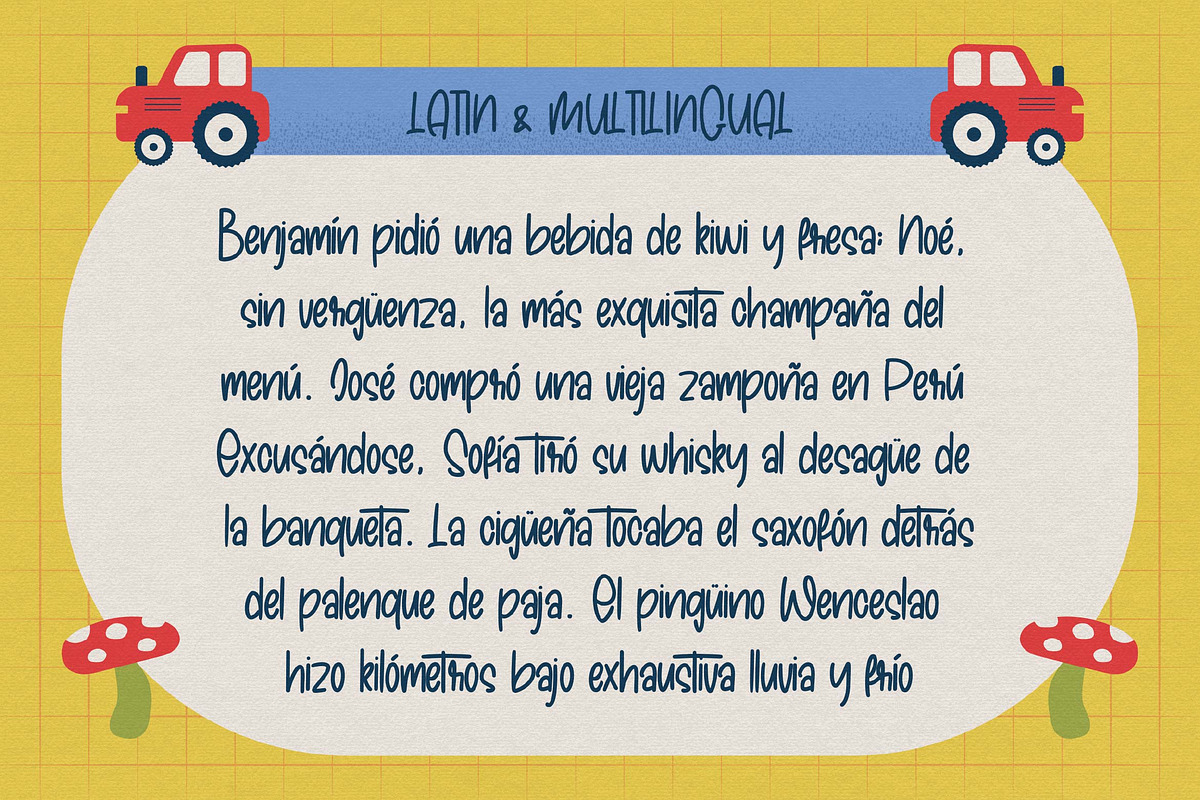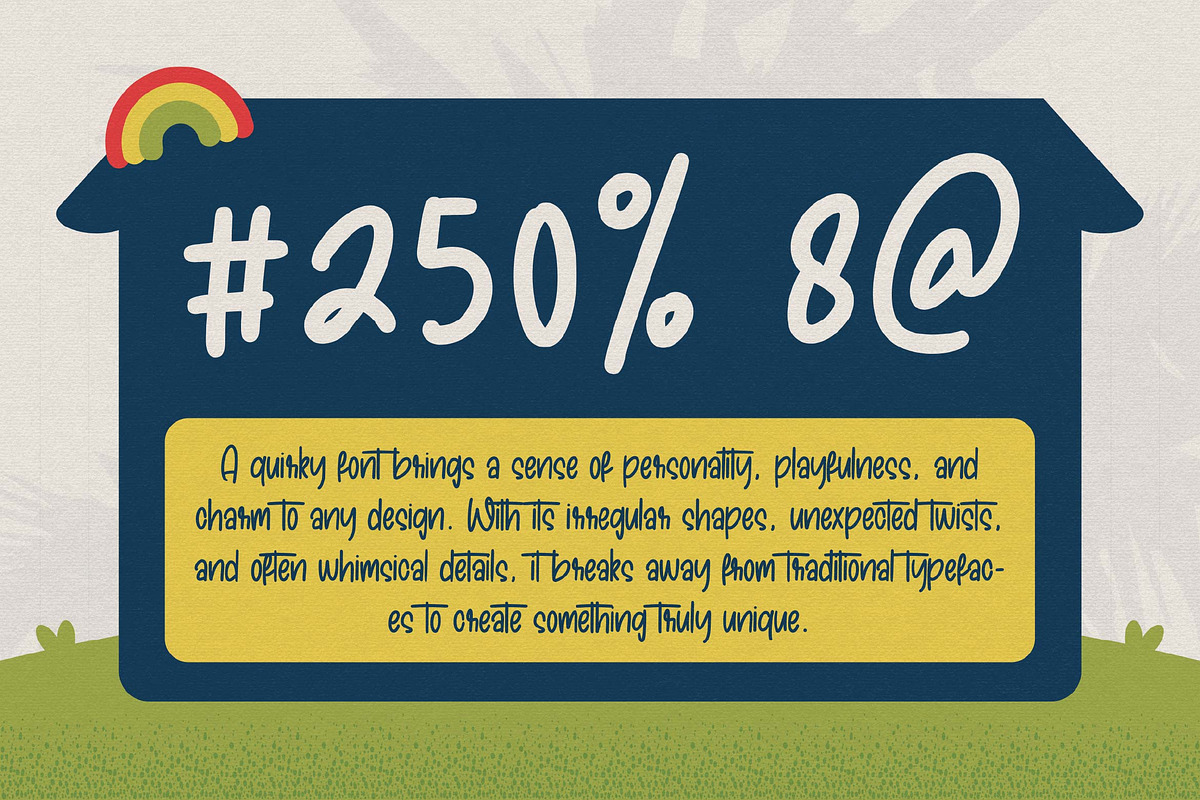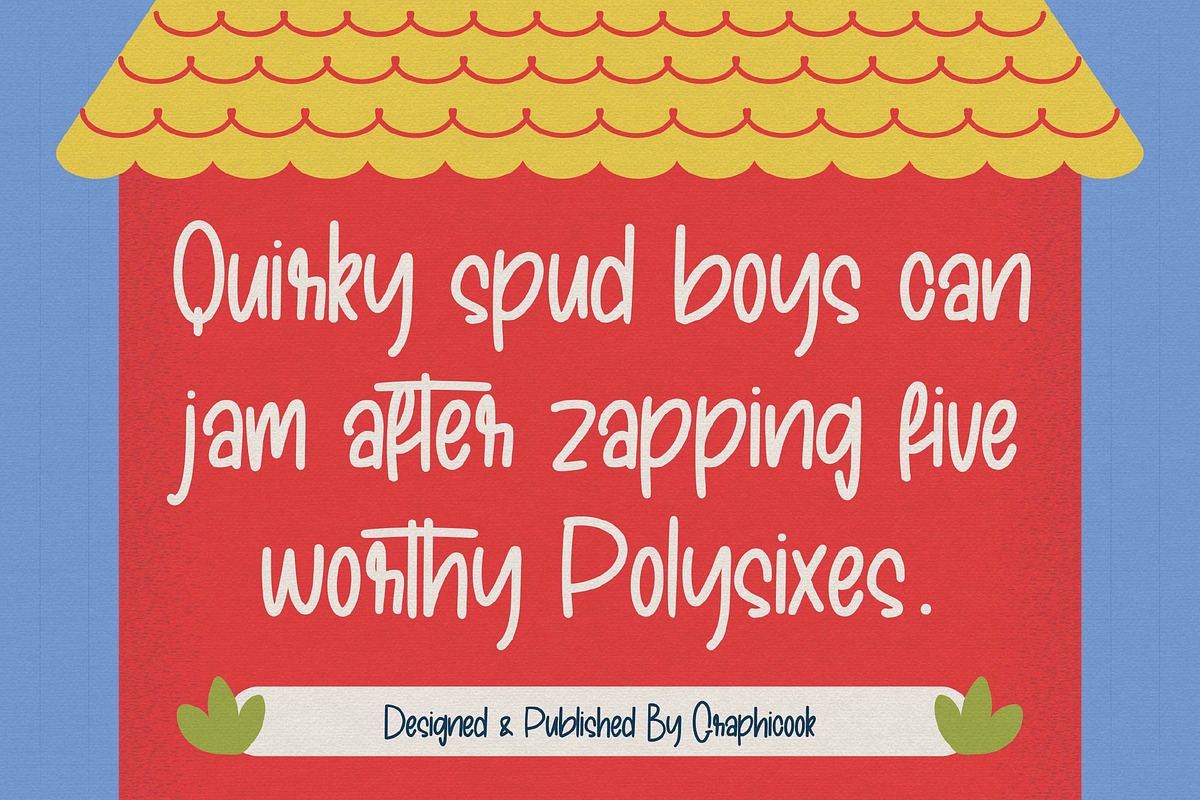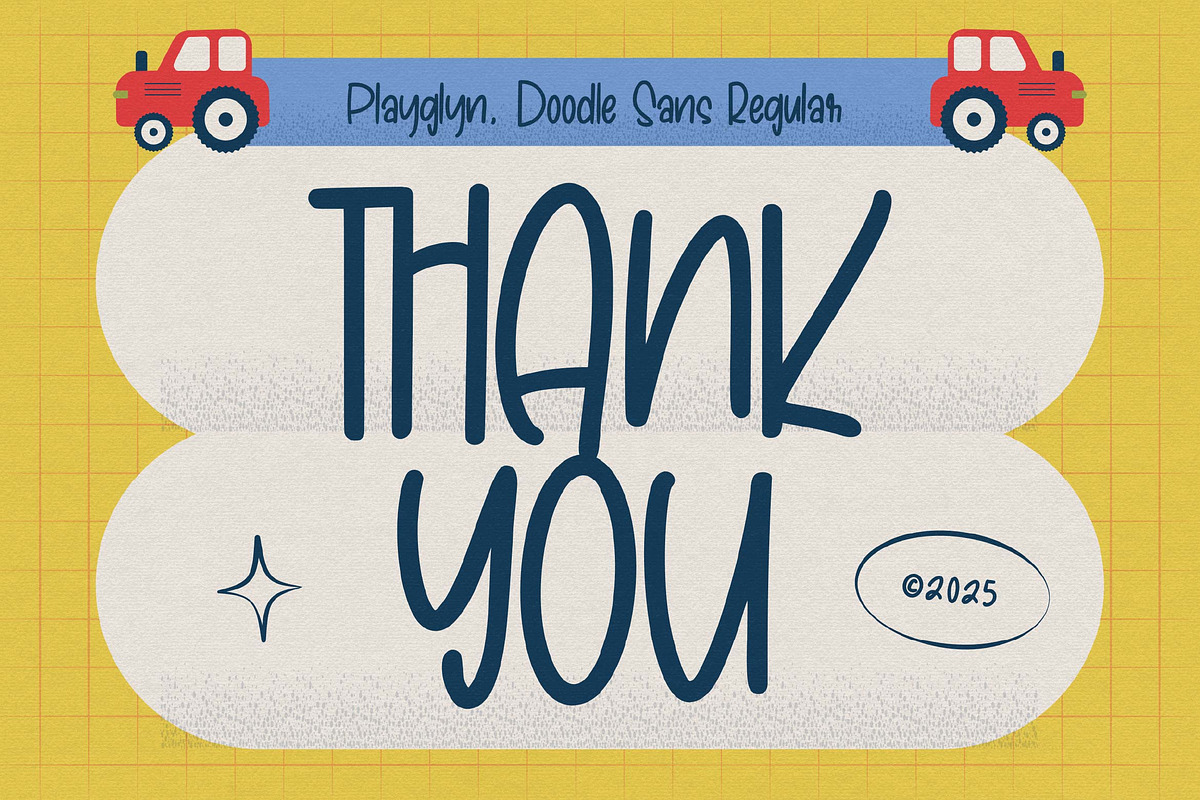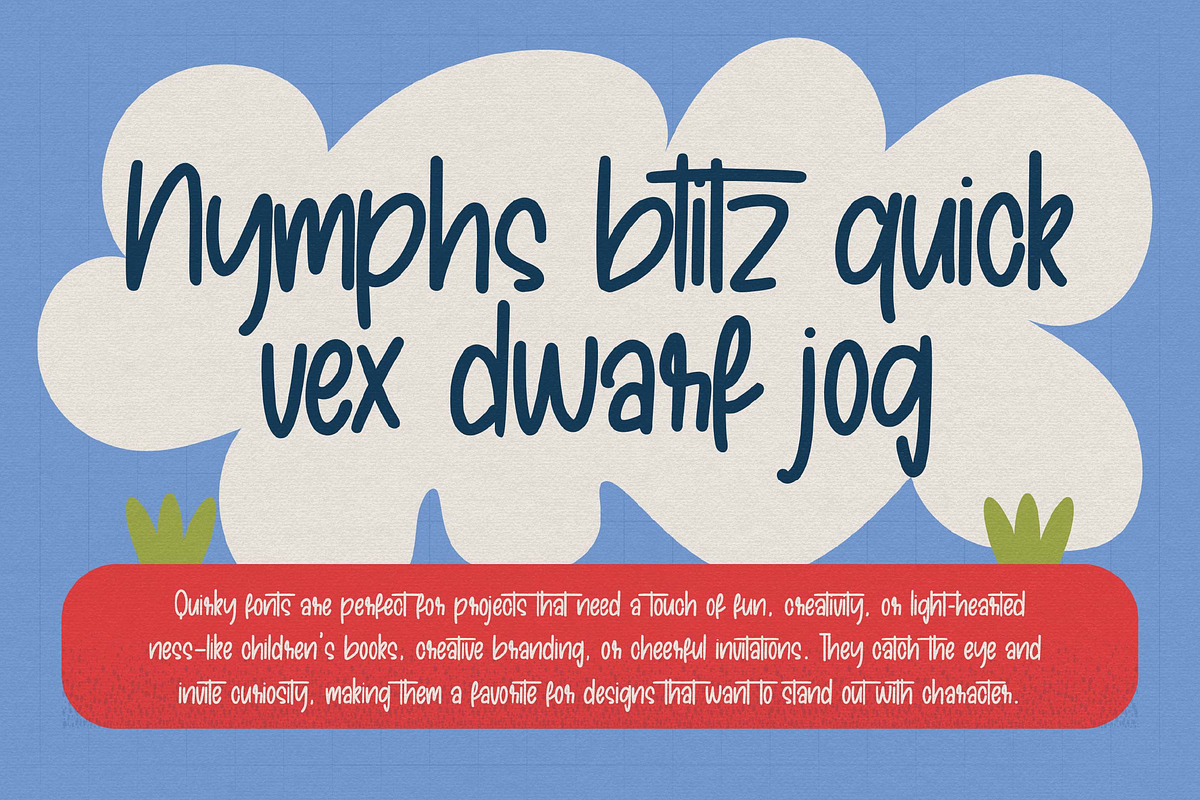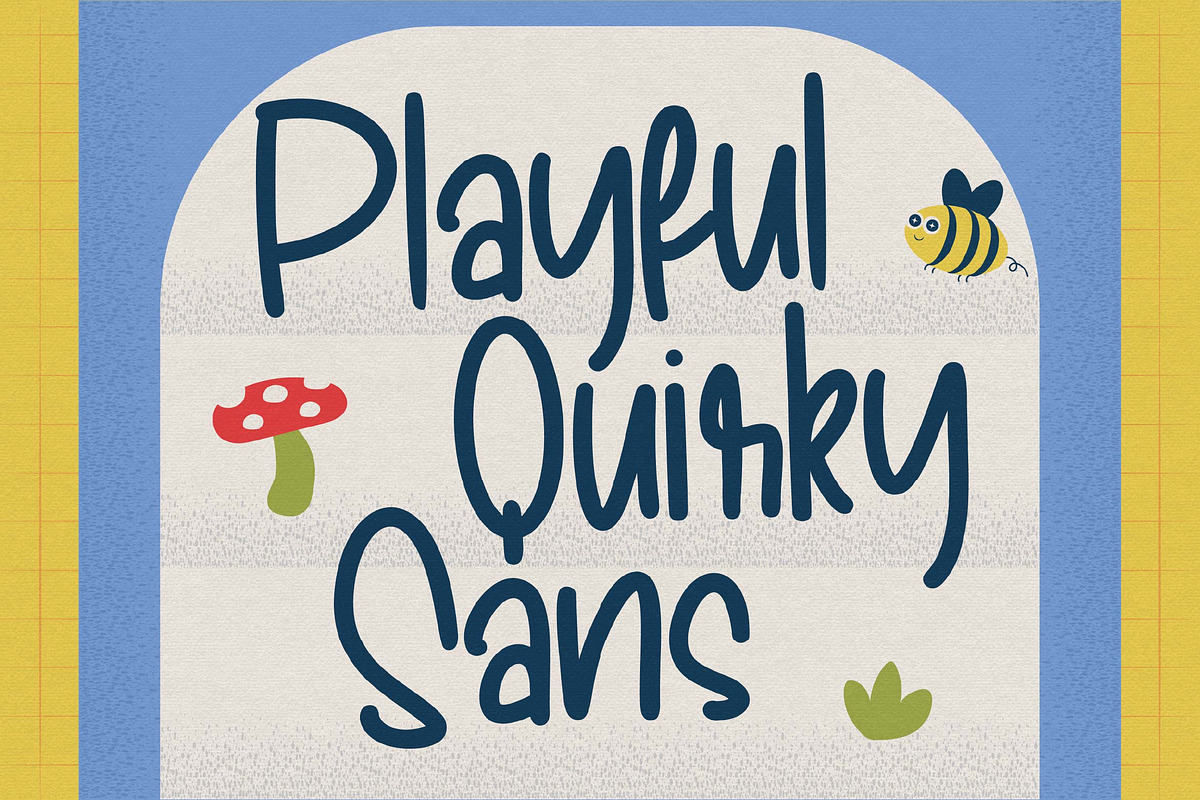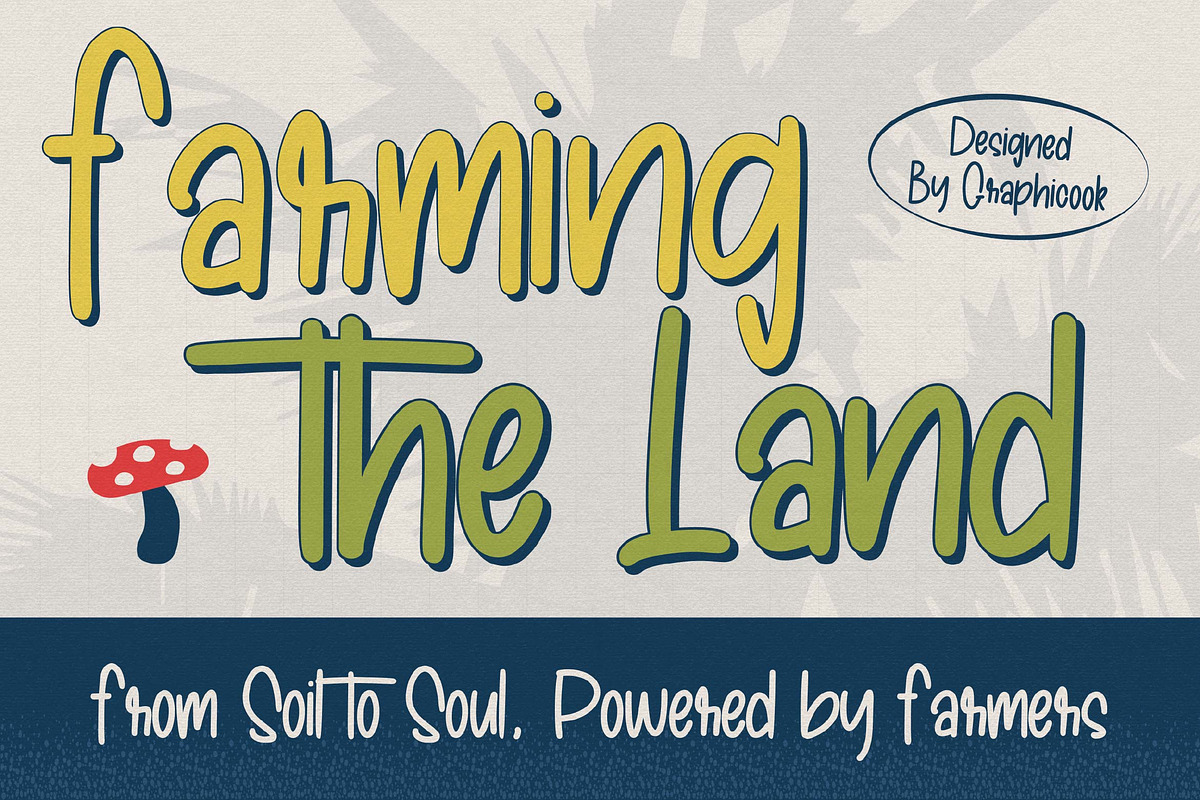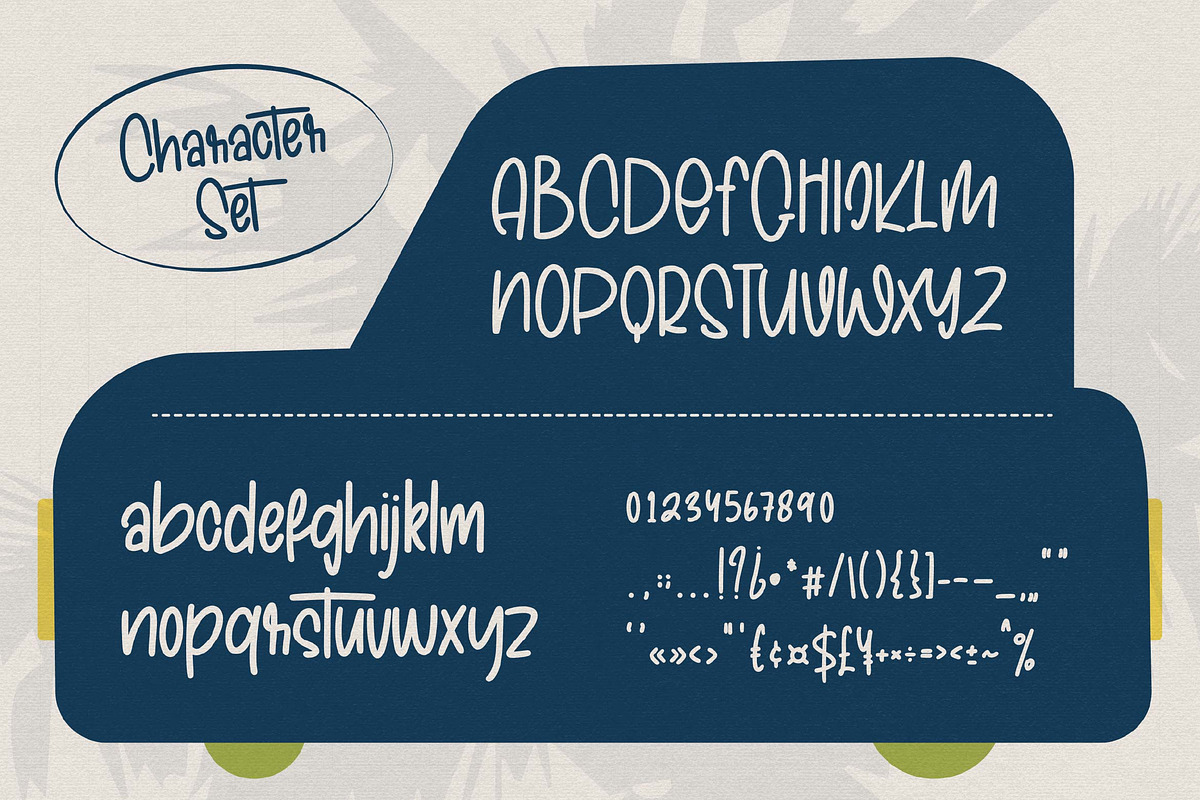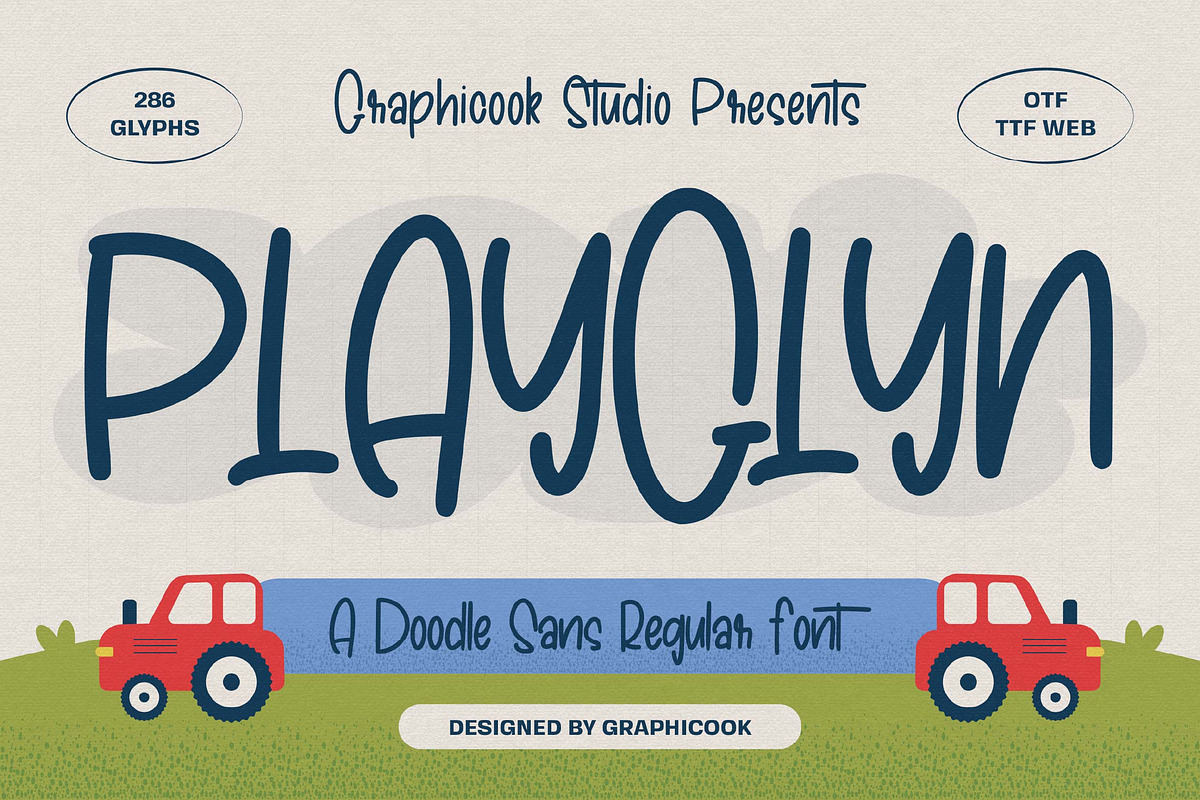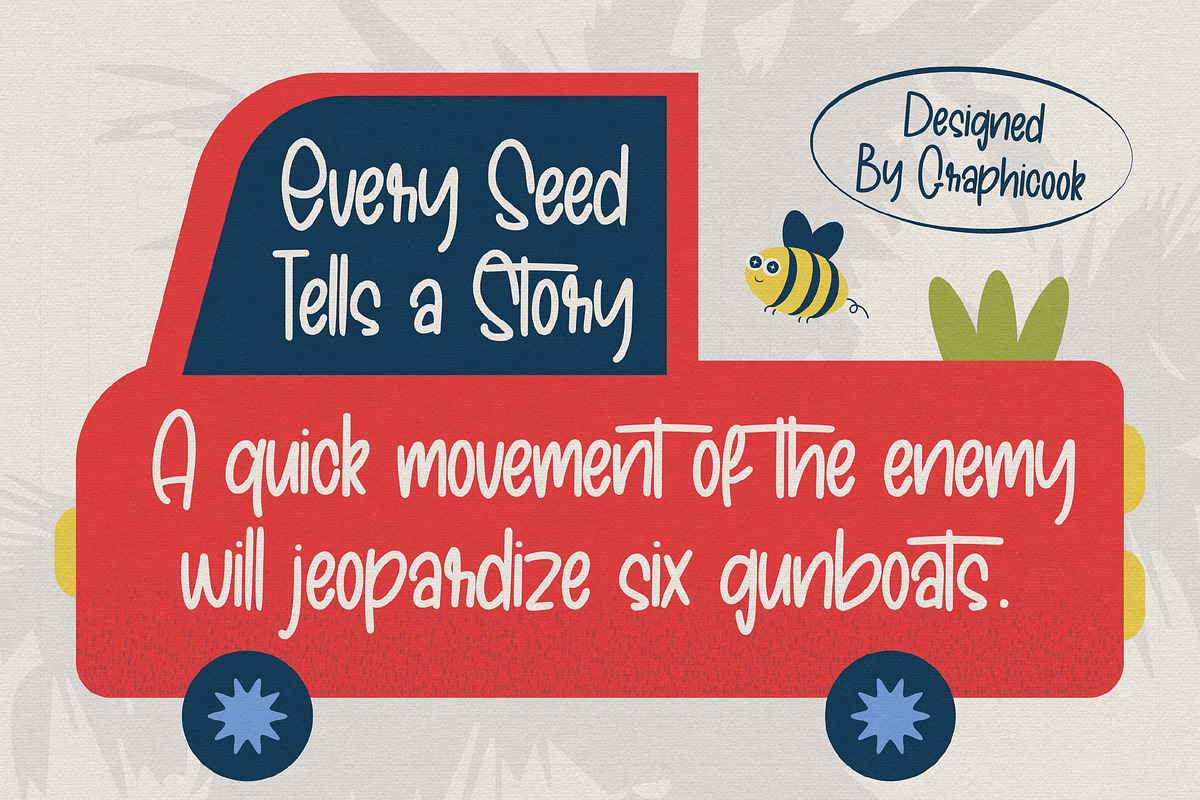
Playglyn
Playgyn is a hand-drawn font with unique, asymmetrical letterforms that create a fun, friendly, and childlike feel. Great for designs aimed at children.
It is perfect for headlines, logotypes, magazines, packaging, quotes, movies, games, cover albums, book covers, and flyers, it's a perfect solution for creating eye-catching designs that stand out in any context.